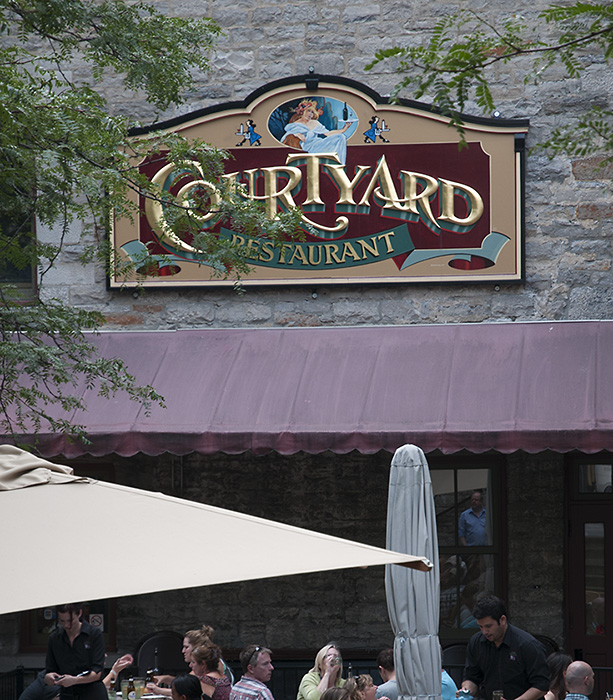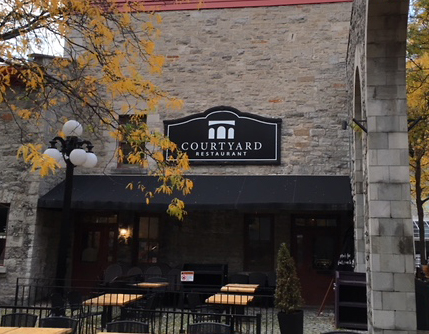
Not sure if others are noticing this but I did see a post on Facebook some time ago and the author was annoyed to find the client was looking for something other than what he was used to doing. I too had seen this and in the last few years had been asked to make a sign with supplied artwork that I disliked. I suppose it's a generational thing as much as changing taste but I do admit it was one (of many) of the reasons I decided to pack it in.
Also .....There seems to be no standards for using the various design programs and was seeing mistakes in the afore mentioned designs. Things like the bowl of an "R" that hadn't been selected during a nudge or move...and worse the client/designer couldn't see it even after I pointed these things out. More often than not I simply adjusted and sent them the replacement so they at least weren't repeating these errors on their coffee mugs and so forth.
Here's a sign I made a number of years ago and the replacement which the clients younger general manager was looking for and done by another sign shop.
well doug, at least they used your panel shape.
style is such a period and personal matter. and remember doug, you're 100 years behind the times.
hummmm... and your "style" is uncompromised ... you are the very definition of fine artist and craftsman !
style is such a period and personal matter. and remember doug, you're 100 years behind the times.
hummmm... and your "style" is uncompromised ... you are the very definition of fine artist and craftsman !
... I love your seeing you style, but I like the "new" logo as well. maybe better in a different shape panel (?) it's more my style.
Well Vance....thanx for the good words but all to say this "IS" the new way. I guess it settles into..... are we manufacturers of other peoples designs or do we work on our own ideas? I for one wasn't ready to hand my favourite part of my business over to often less than competent craftspeople regardless of "style" dictates. This is "not" to say the new ideas are less important in the grand scheme but I'm willing to admit I wasn't ready to change my ideas of design. I recall a great article in AMAL a few years ago with Charlie Thames recalling his first years with Frank Atkinson where he described a similar style idea differences with him...should we all be that lucky! ;=)
Here's couple of photos of other days
Oh my, Doug.
There's simply no comparison.
While I agree with Vance that there's a certain attraction to the clean starkness of the newer design, even that is executed poorly. The panel shape doesn't arise from the design so it's an obvious retrofit inside the panel from your previous design. And if one is going to use a minimalist black & white style, at least attention should be given to close that space on either side of the "A" so that it isn't standing out in the cold. But maybe you get what you pay for.
Thanks for sharing this, Doug. Always love seeing your stuff and especially the work in progress. I haven't any idea what you've charged for your masterpieces, but I doubt that customers ever fully paid for what they got. There is tremendous satisfaction achieved in job well-done - a significant and intangible reward - but it doesn't put beans on the table.
Vance - Michael Schwab is one of my favorite designers. His stylized simplicity is a genre I've always admired, but achieving that is much more difficult than it appears. My attempts have never come close.